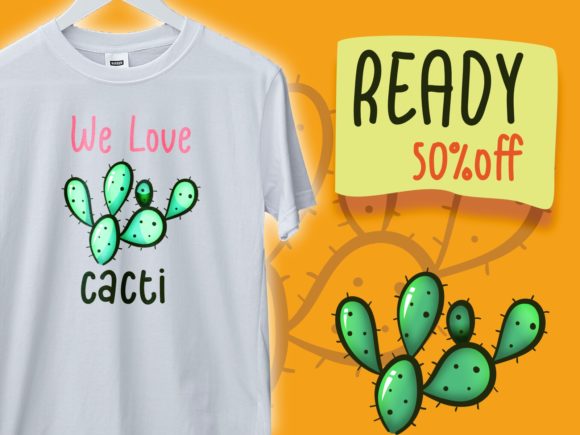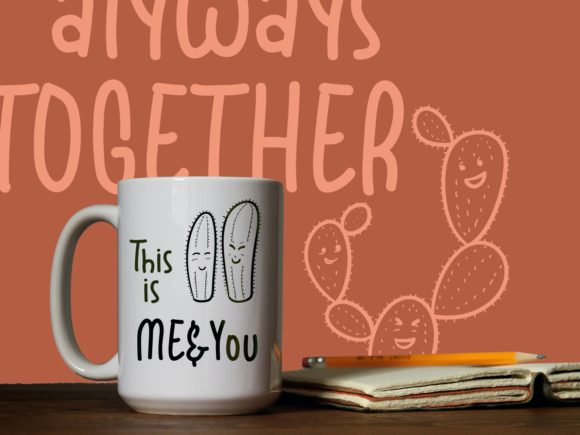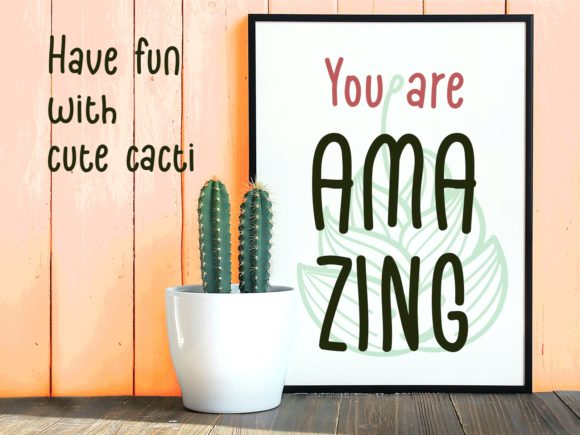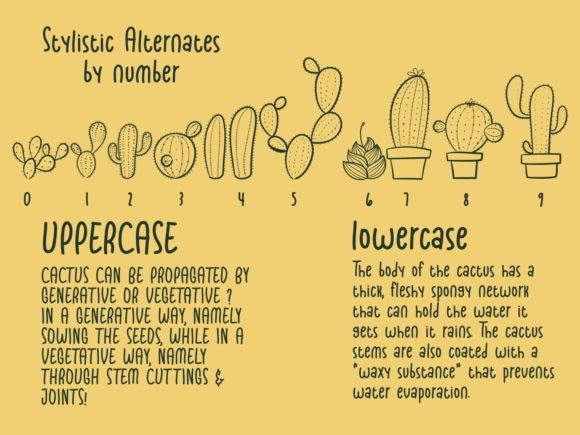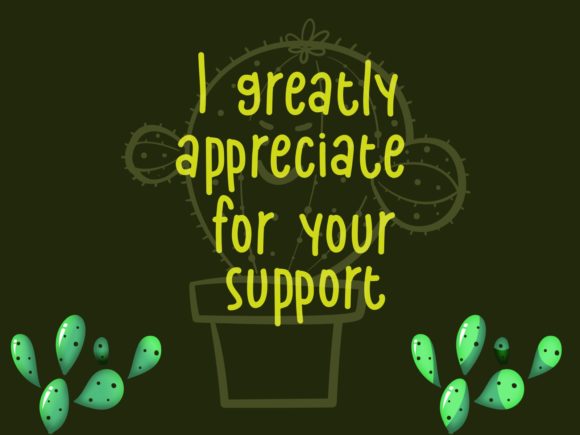
Do you remember the moment when you finally nailed the perfect aesthetic for your project? The one where everything comes together, and you can’t help but feel a sense of pride and accomplishment? For designers, those moments are what make all the hard work worth it. But, have you ever thought about what makes a project truly stand out?
That’s where the Cactus Valley Font comes in – a playful handwritten font that’s as versatile as it is charming. This font is more than just a pretty face; it’s a tool designed to elevate your creative ideas and make them shine. With its cute cacti elements and PUA encoding, you’ll have access to all the glyphs and swashes you need to bring your vision to life.
Cactus Valley Font Key Features
- Font Family: Cactus Valley Font is a unique, hand-drawn font that combines elements of cactus and desert themes.
- Unique Characteristics: Cactus Valley Font features intricate, hand-drawn details and unique letterforms that evoke the spirit of the American Southwest.
Cactus Valley Font Review
Cactus Valley Font is a visually appealing and unique font that can bring a touch of the wild west to your designs. ✨ Its quirky, cactus-inspired design elements make it perfect for projects that need a bit of whimsy and character.
Some of the things that work well with this font include:
- Its high level of customization, allowing you to adjust various parameters to fit your design needs
- Its versatility, making it suitable for a wide range of projects, from branding and marketing materials to editorial and educational content
- Its unique, hand-drawn feel, which can add a personal touch to your designs
- It may not be suitable for projects that require a more professional or formal tone
- It can be difficult to read at very small font sizes, so it’s best used for larger text
- Some users may find the font’s irregularities and imperfections distracting
Overall, I would say that Cactus Valley Font is a great choice for designers who want to add a bit of personality and flair to their projects. While it may not be the best fit for every project, it’s definitely worth considering for those that require a unique and eye-catching touch.
The Cactus Valley font is ideal for:
- Casual, hand-drawn designs
- Outdoor and nature-inspired designs
Alternatives to Cactus Valley Font
The Cactus Valley Font is a unique, handwritten font often used for its whimsical and personal feel. However, it may not be suitable for every project. Here are a few alternatives:
The Great Vibes Font is a modern, handwritten font with a touch of elegance. It’s perfect for creating a sense of sophistication and style. Compared to Cactus Valley Font, Great Vibes is more refined and less quirky, making it suitable for a wider range of projects, including branding and advertising.
The Alex Brush Font is a beautiful, handwritten script font that’s perfect for creating a sense of luxury and sophistication. It’s ideal for use in wedding invitations, greeting cards, and other high-end projects. Compared to Cactus Valley Font, Alex Brush is more elegant and refined, making it suitable for projects where a high-end feel is desired.
The Carolyna Pro Font is a modern, handwritten font with a touch of playfulness. It’s perfect for creating a sense of fun and energy, making it suitable for use in youth-oriented projects, such as magazines and advertising campaigns. Compared to Cactus Valley Font, Carolyna Pro is more modern and less quirky, making it suitable for a wider range of projects.